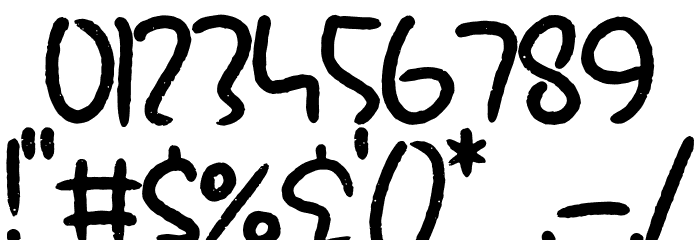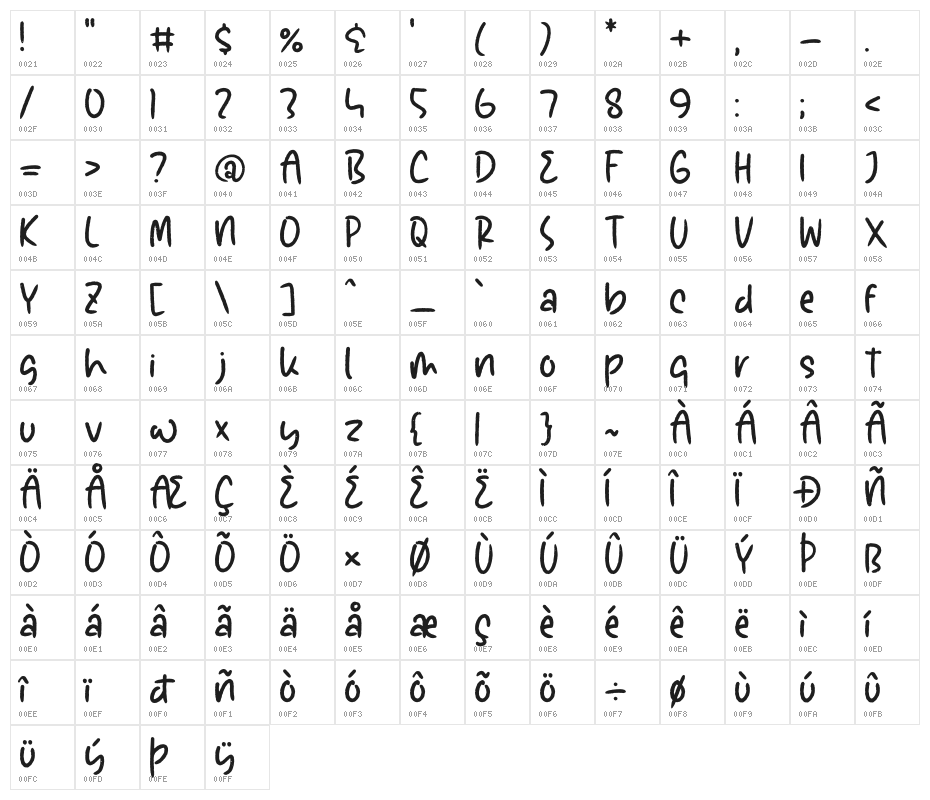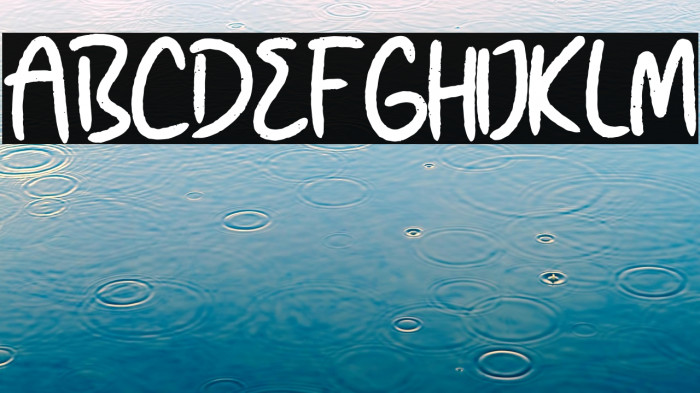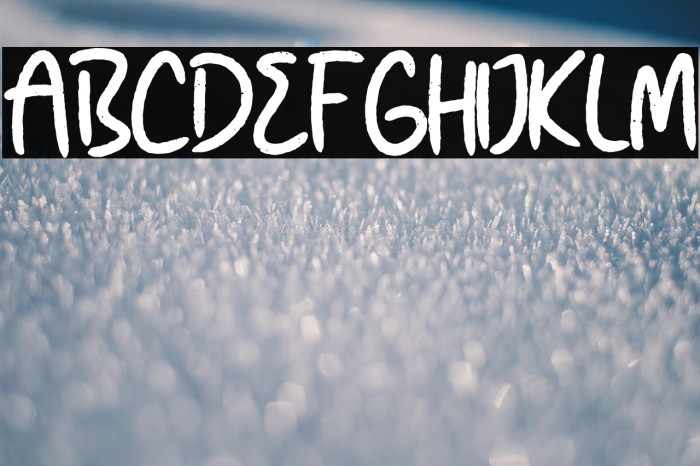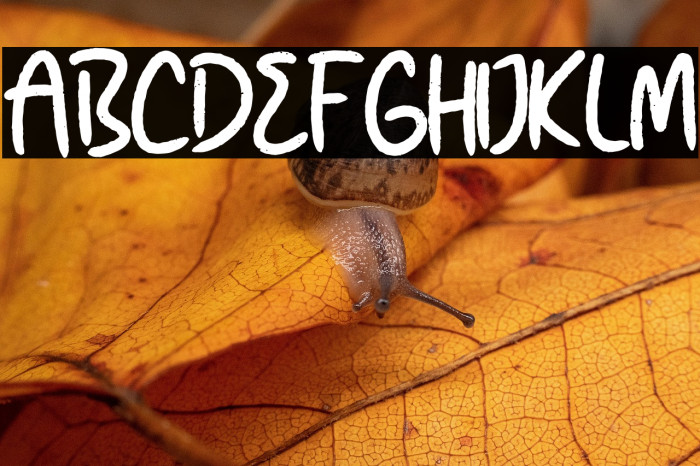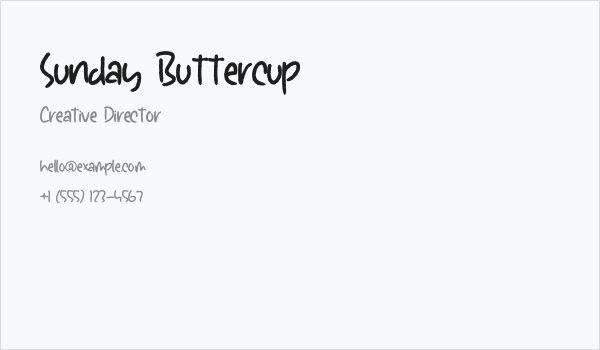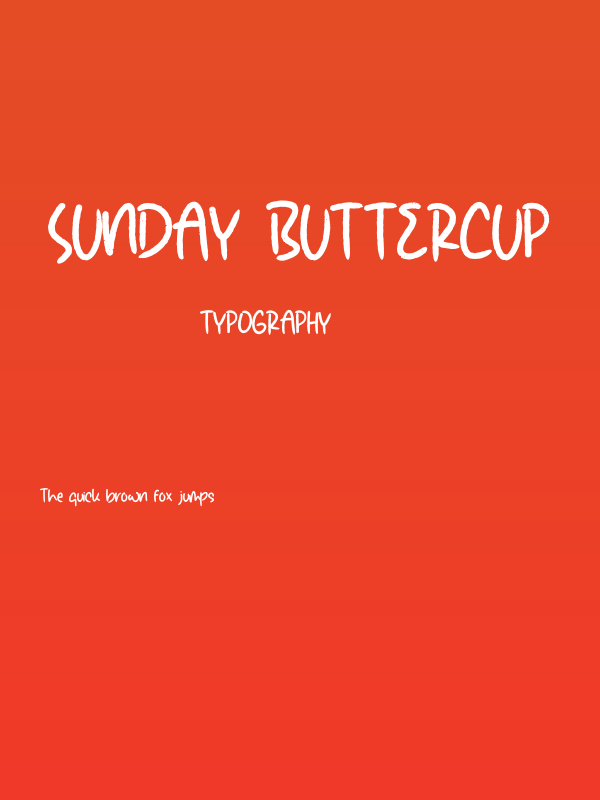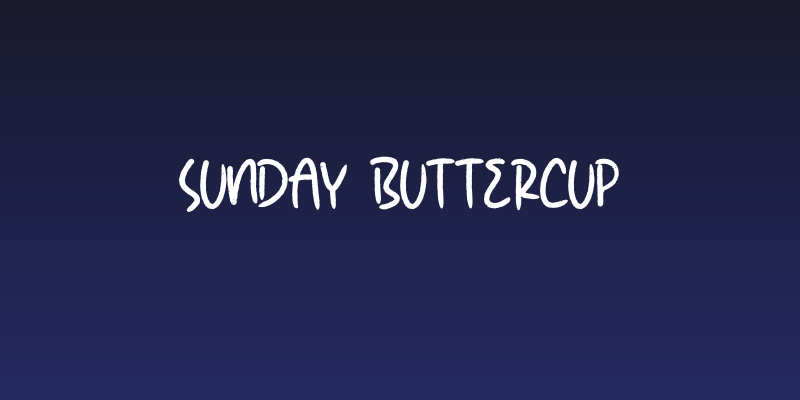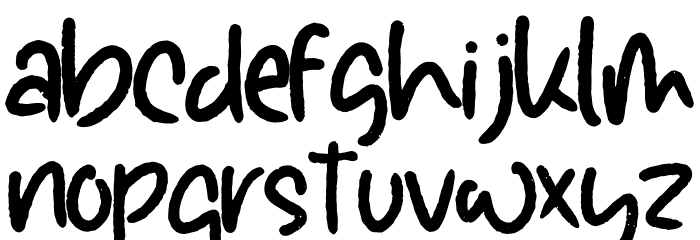
Sunday Buttercup Font
Sunday Buttercup Description
This font exudes a playful and casual handwritten style, characterized by its bold strokes and slightly irregular letterforms. The uppercase and lowercase letters maintain a consistent flow, giving it a cohesive look. The numbers and special characters follow the same playful aesthetic, making it versatile for various design needs. Its bold presence is balanced by a slightly wide character spacing, ensuring readability while maintaining its unique charm. The font's organic and informal style makes it suitable for projects that require a personal touch.
| Proposed Projects | Ideal for greeting cards, children's books, playful branding, and social media graphics. |